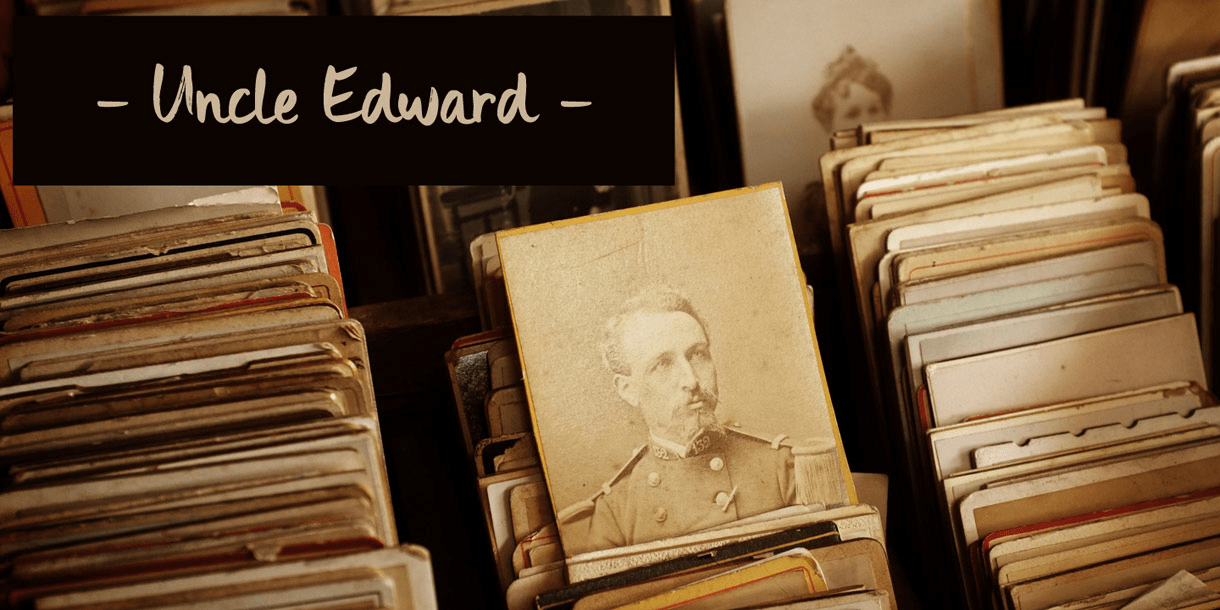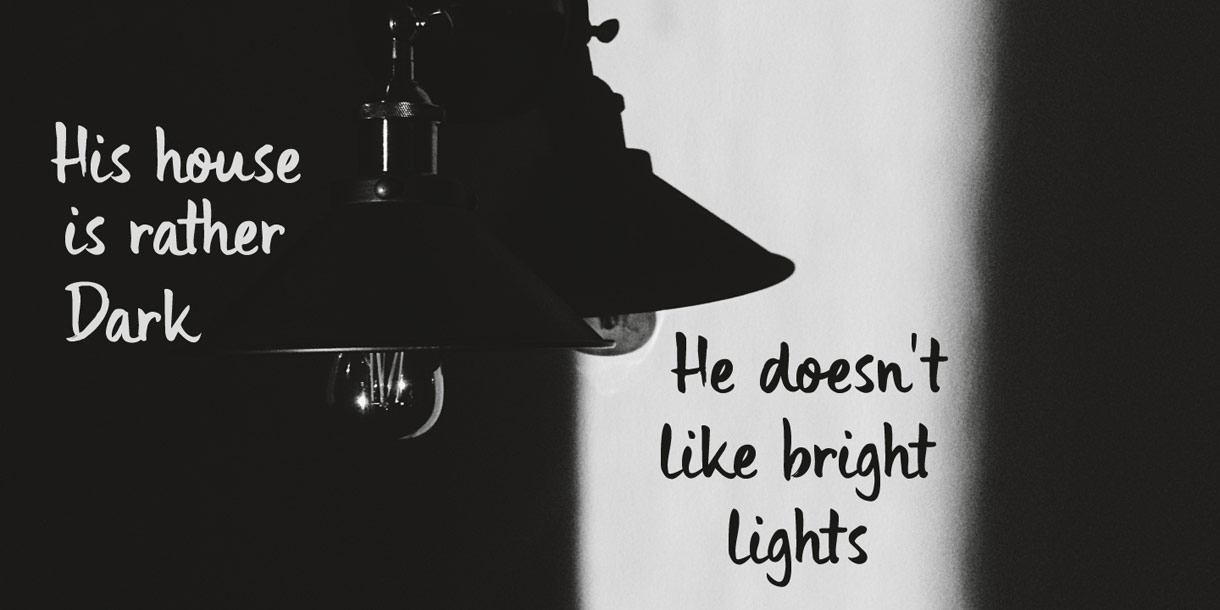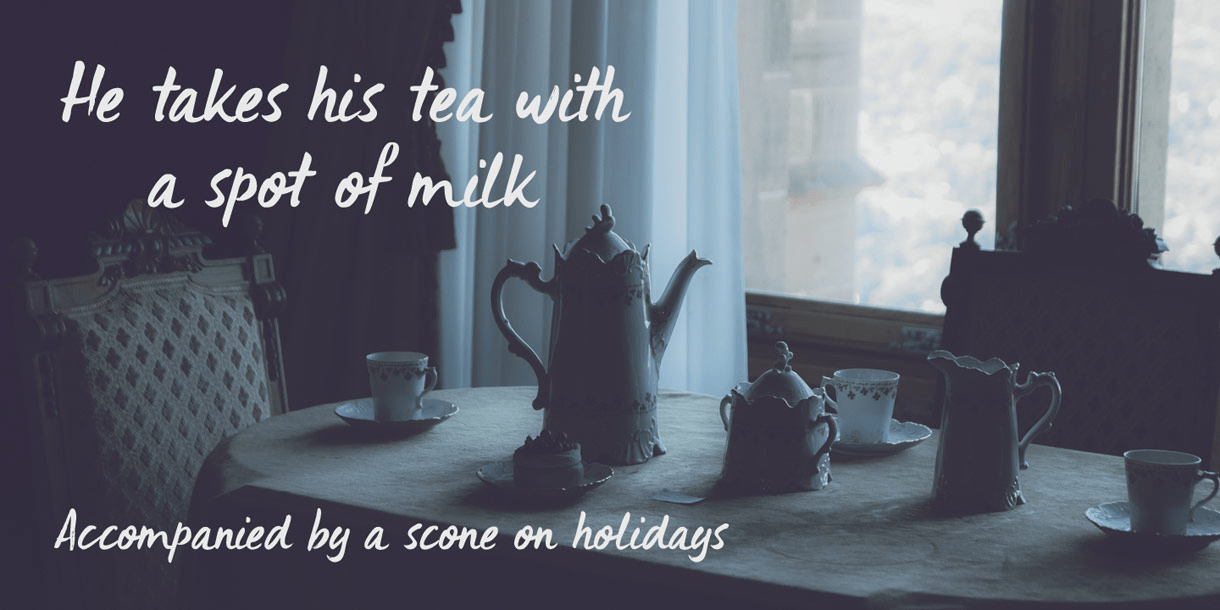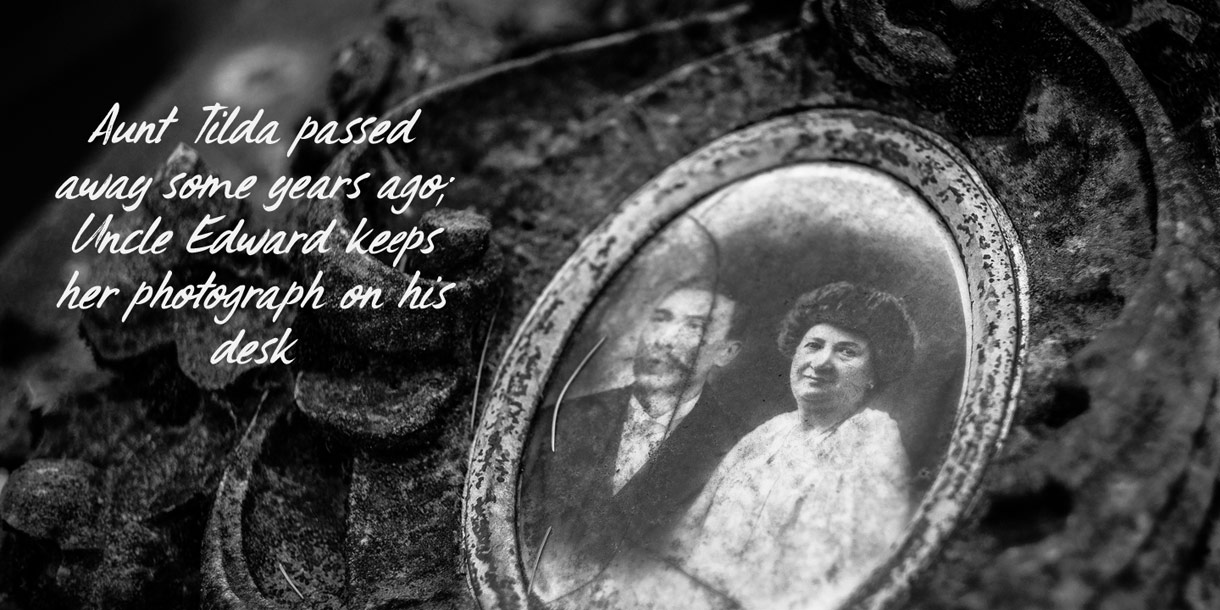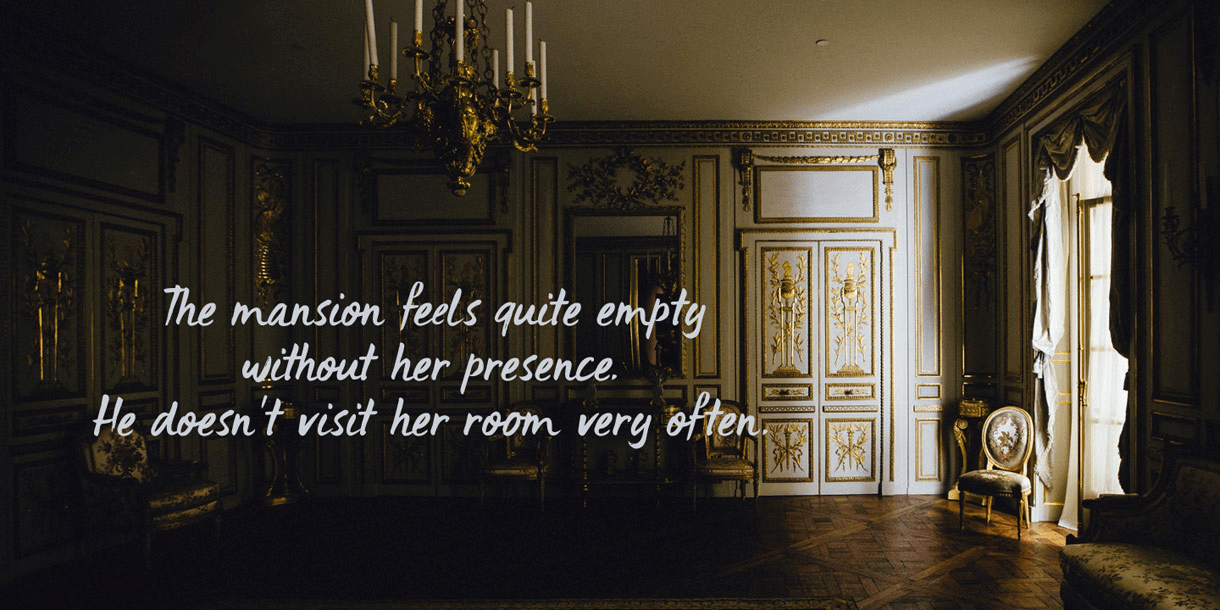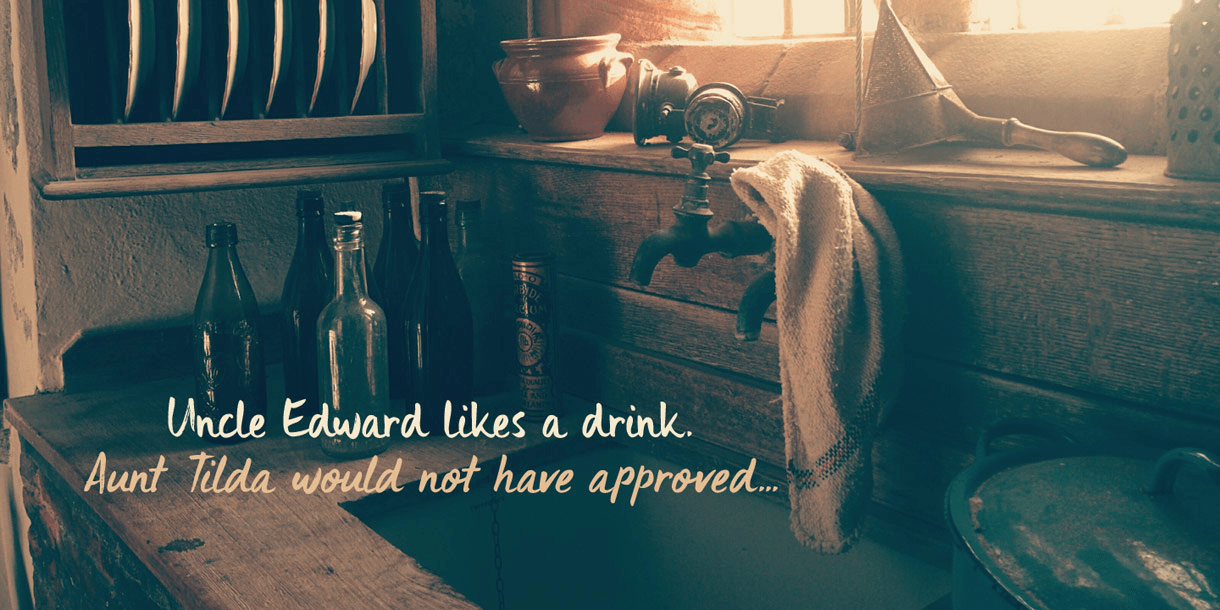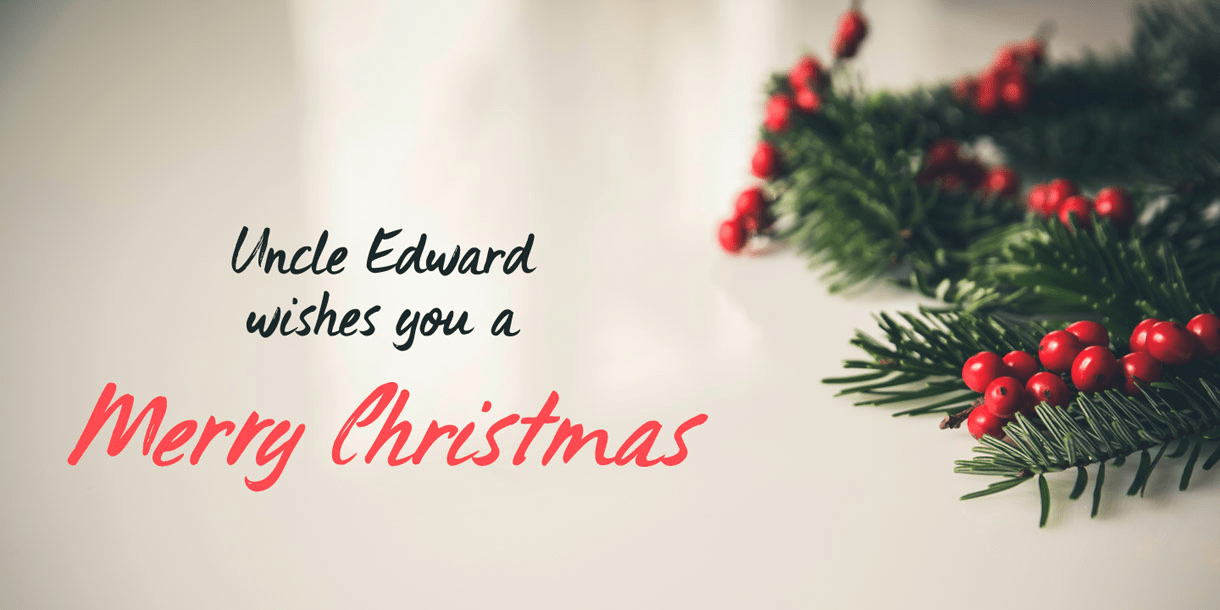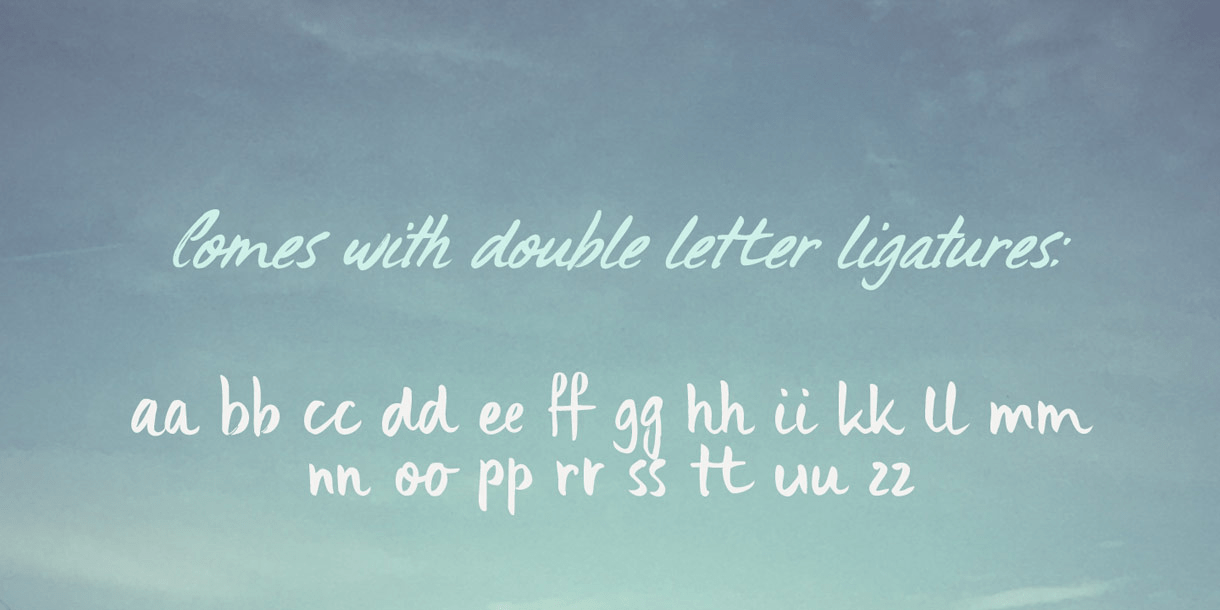
Uncle Edward
First of all, I don't have an uncle called Edward, nor do I know anyone by that name. When I had finished this font, it had a strong ?Uncle Edward? feeling to it, so the name stuck.
Uncle Edward is a handmade script font. I used a Japanese brush pen and some rough paper to create that ?vintage? look. Use Uncle Edward for your book covers, your invitations or your product packaging. Create labels for your vintage record collection with it, or print a guest list for your Christmas dinner party. Uncle Edward gives you his blessing.
Comes with ligatures for double letters and a whole bunch of accents.